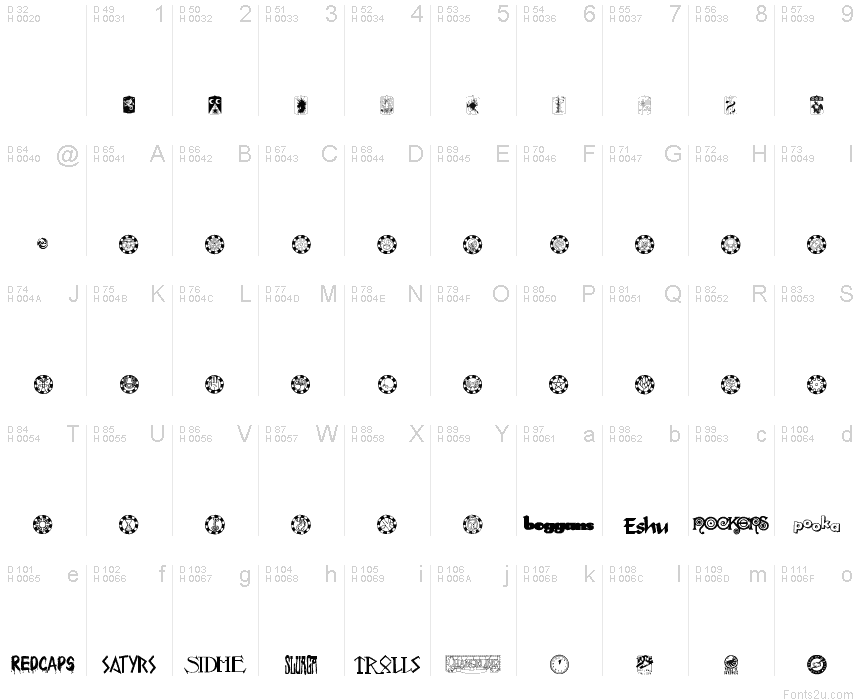
Changeling Dingbats
Changeling Dingbats font by White Wolf is a free decorative dingbat typeface. Pulled straight from the moody world of *Changeling: The Dreaming*, its chunky crests, warped clan titles, and sharp, fae-flavored letterforms feel like they’re stamped in inky black wax. The mix of circular emblems, bulbous wordmarks, and elegant, spidery labels gives your layouts an instant hit of occult-fantasy atmosphere.
Using Changeling Dingbats, you can brand RPG campaigns, character sheets, in-world handouts, LARP props, fantasy maps, tarot-style cards, and moody zines with consistent lore-rich icons. This free font works best when the symbols stay large and bold, while body text sits in a clean serif or sans as a quiet supporting act.